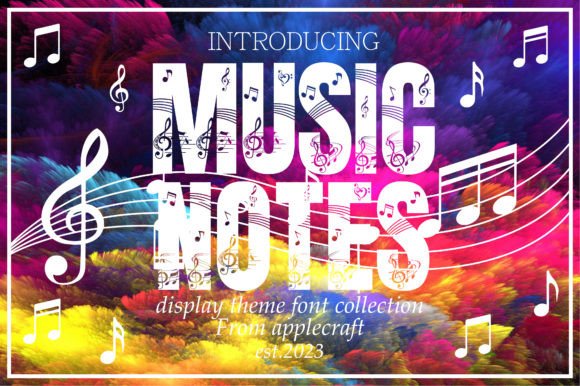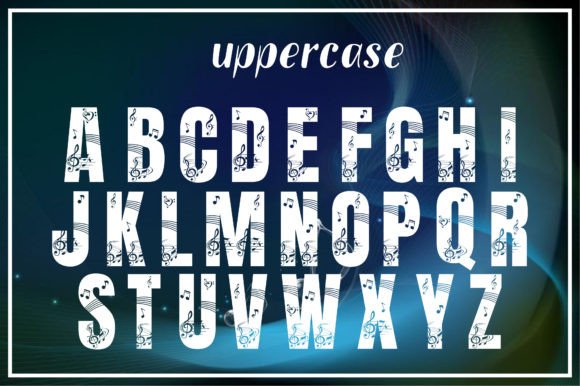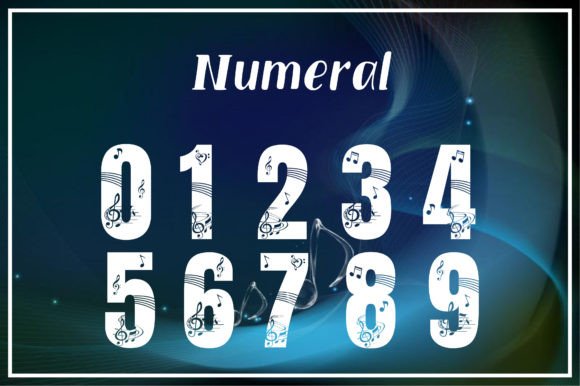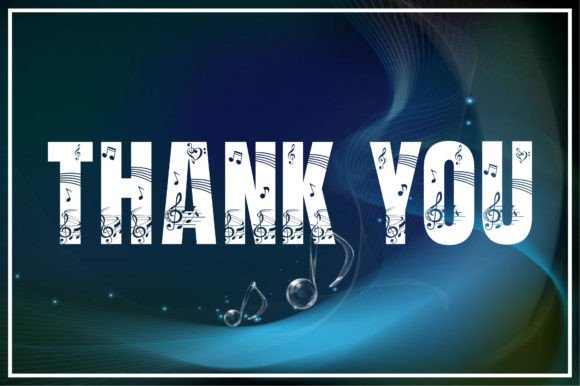
Music Notes Font
About the Music Notes Font
From logos to headlines, the Music Notes Font is the perfect choice for making a lasting impression. Music Notes is a thick-lettered and fun-looking decorative font. The font has a modern and eye-catching look, making it ideal for children-themed designs, and other special occasions. It’s easy to read and adds a touch of authenticity to any design project.
Music Notes Font’s playful, bold personality makes it perfect for headlines, short text on posters, and branding elements for children’s products or entertainment businesses. Its decorative nature also lends itself well to packaging design for celebratory items or gifts. However, its thick weight and decorative elements make it unsuitable for body text or UI applications requiring high readability in long paragraphs.
Consider pairing Music Notes with a clean sans-serif like Open Sans for a balanced contrast; the sans-serif provides legibility for supporting text. Alternatively, a simple serif font such as Lora can add a touch of classic elegance to offset the font’s playful nature, especially for projects targeting a slightly older audience.
The overall feel is energetic and friendly, suitable for brands that want to project a fun, approachable, and slightly whimsical image. Avoid using it for projects requiring a sophisticated or serious tone.
Music Notes Font Usage Examples
Music Notes Font Example